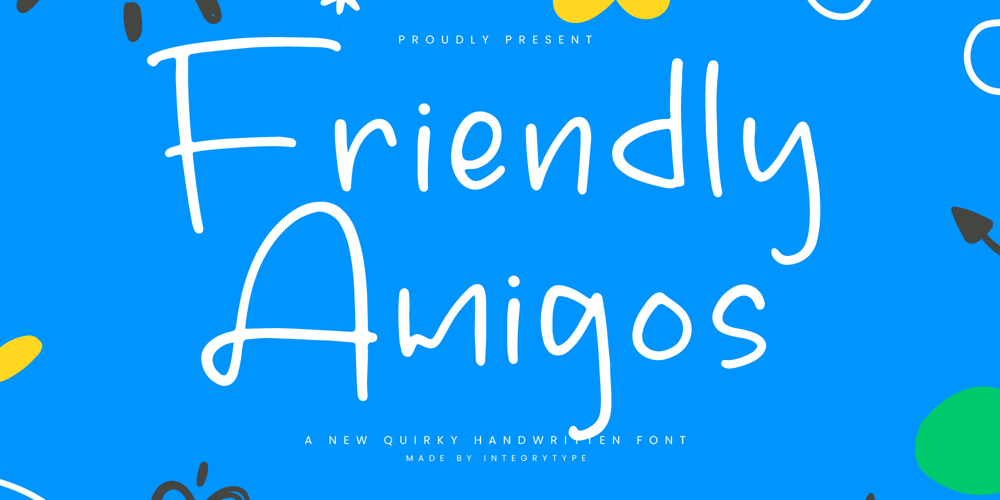
Friendly Amigos
Friendly Amigos font
Friendly Amigos Font Family was designed by Dimas Alif Maulana and published by Integritype. Friendly Amigos contains 2 styles and family package options. Friendly Amigos – Quirky Handwritten Font, from Integritype Studio, perfect for any project like: logos, branding projects, homewares designs, product packaging, mugs, quotes, posters, shopping bags, t-shirts, covers books, business cards, invitation cards, greeting cards, labels, photography, watermarks, special events and all your other luxury projects that require a premium taste.